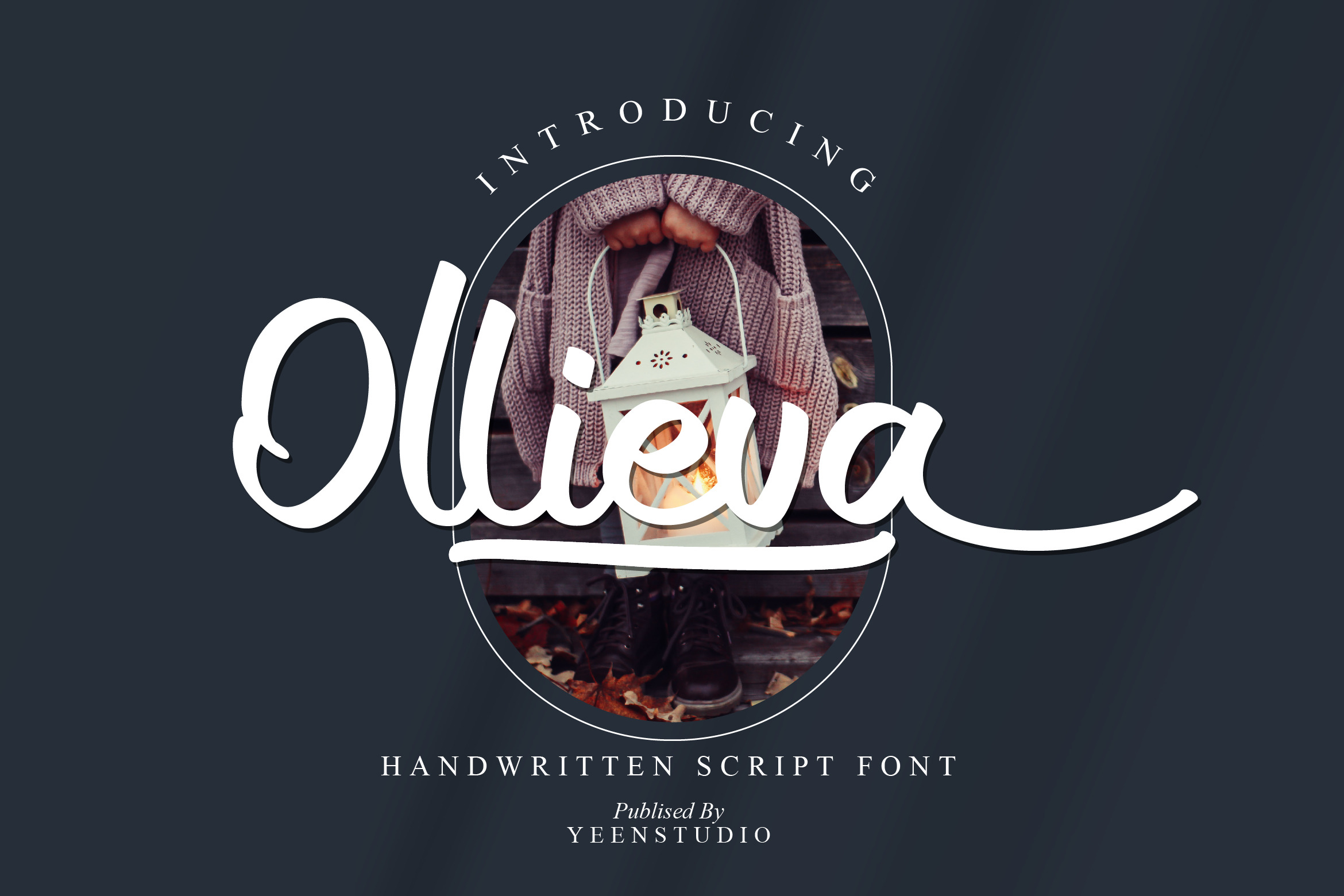
Ollieva Handwritten Script Font
Introducing Ollieva - Handwritten Script Font
This Font can be used for any variety of purposes, such as: Photography, Wedding Invitation, Packaging Product, Logo Type, Brand, and also can be used for personal purpose. This Font Template contains Modern, Elegant, creative, Professional and Unique Concept.